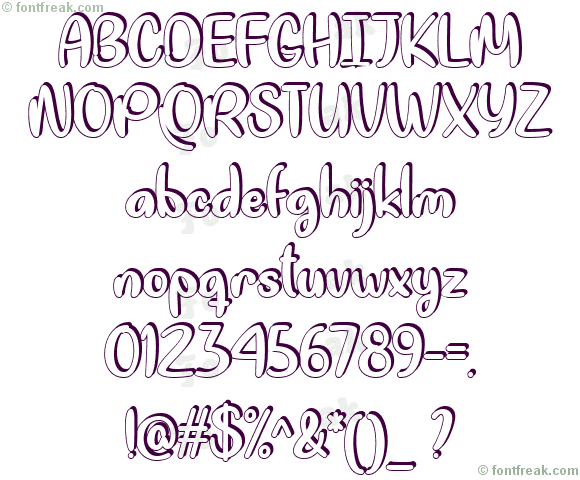
Quite Colorful Regular
About Quite Colorful Regular
The Quite Colorful Regular font by Misti Hammers is a delightful display typeface that exudes a friendly and whimsical character. This decorative font, crafted in 2019, features a playful design that captures attention while maintaining readability. With its rounded strokes and lighthearted curves, it presents a unique blend of elegance and charm, making it suitable for a variety of creative projects.
Visually, Quite Colorful Regular stands out with its moderate stroke weight and soft contrast. The letters are spaced generously, providing an airy feel that enhances legibility. The playful nature of the font is accentuated by its rounded edges, giving it a youthful and approachable appearance. Its design includes subtle decorative elements that add a touch of creativity without overwhelming the viewer, making it versatile for multiple applications.
This font is ideal for use in wedding invitations, where its charming aesthetics can evoke joy and festivity. It's also a great choice for children’s book covers, as its friendly style appeals to young readers. Additionally, Quite Colorful Regular works beautifully on restaurant menus, bringing a vibrant and inviting atmosphere to dining experiences. Content creators can leverage this font in social media graphics, where its eye-catching design can effectively engage audiences.
What sets Quite Colorful Regular apart is its ability to blend fun with functionality. This font not only communicates messages effectively but also adds a touch of personality that can enhance any design project.